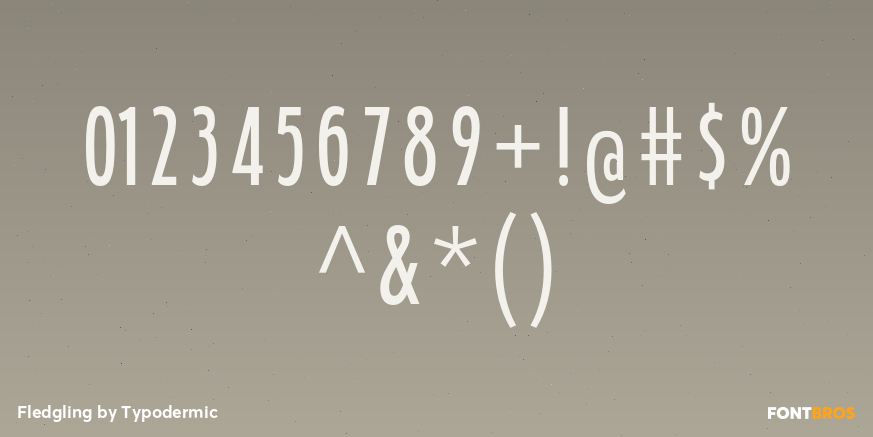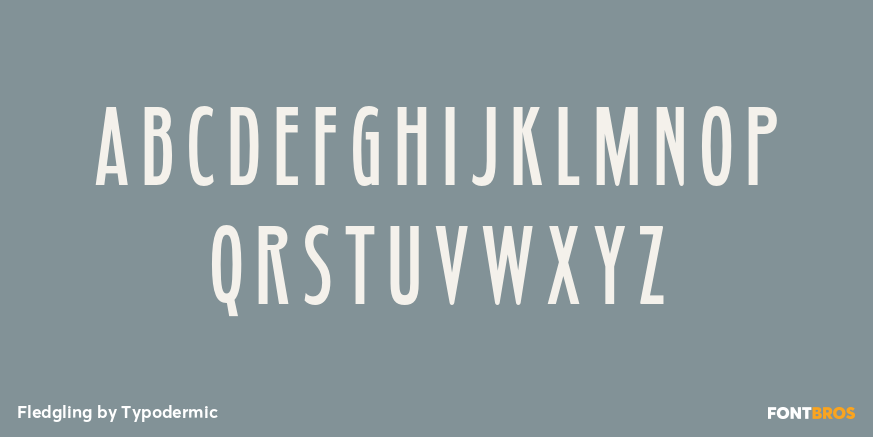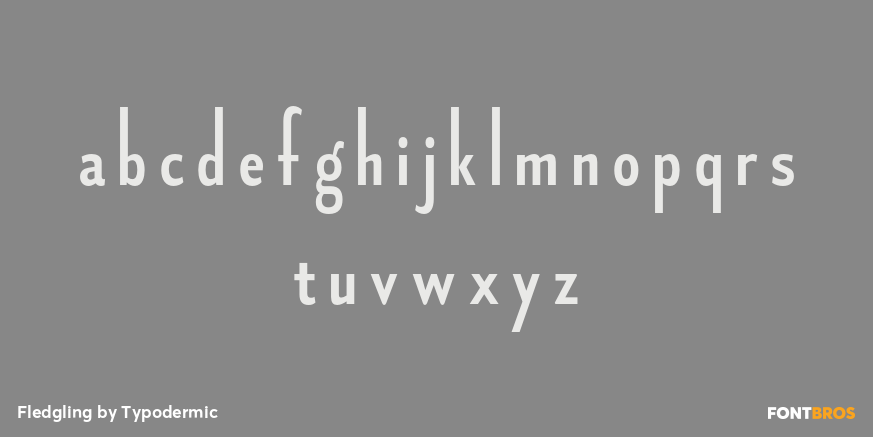
Fledgling
Font Family by Typodermic
Luxury typography often has to fit into awkwardly narrow spaces. A restaurant name has to sit above a menu column; a fragrance name has to fit a tall bottle; two long surnames have to share an invitation without shrinking into insignificance. A conventional condensed sans can solve the width problem but leave the result feeling mechanical. Fledgling takes another approach: narrow proportions, a very low x-height and long ascenders make words feel elongated rather than squeezed.